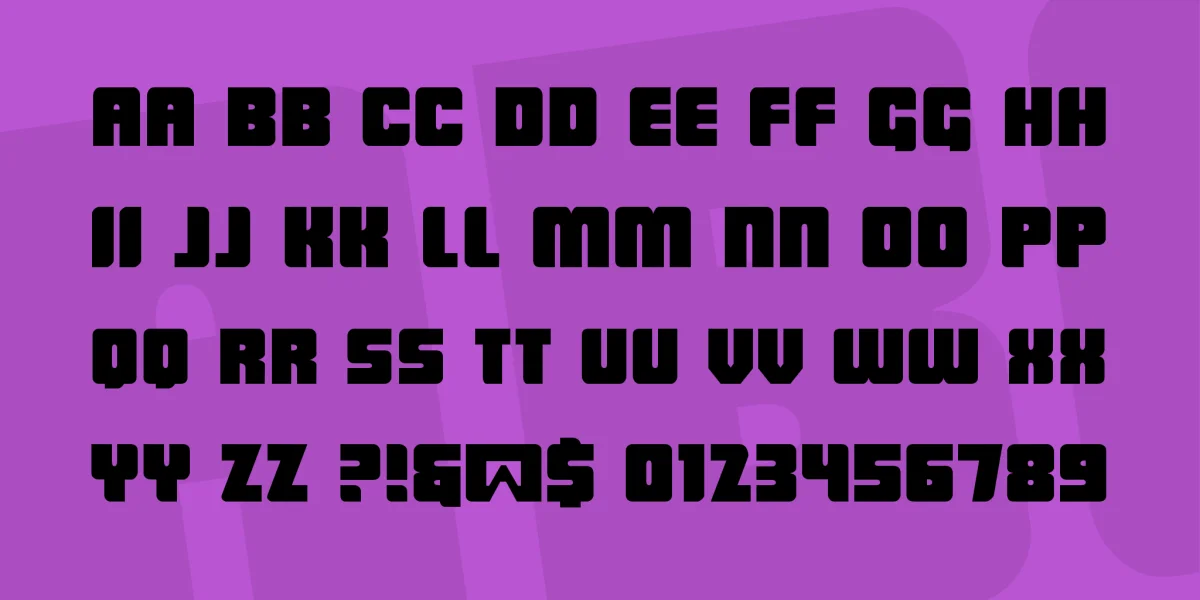
So you’re stuck at home, sitting at your computer, and you’d really like to cruise with your homies…what’s a suburban geek to do? Why add some pneumatics to his 1987 Pinto and wear his hat sideways, of course! Check out this funky-fresh typeface with more back than J-lo.